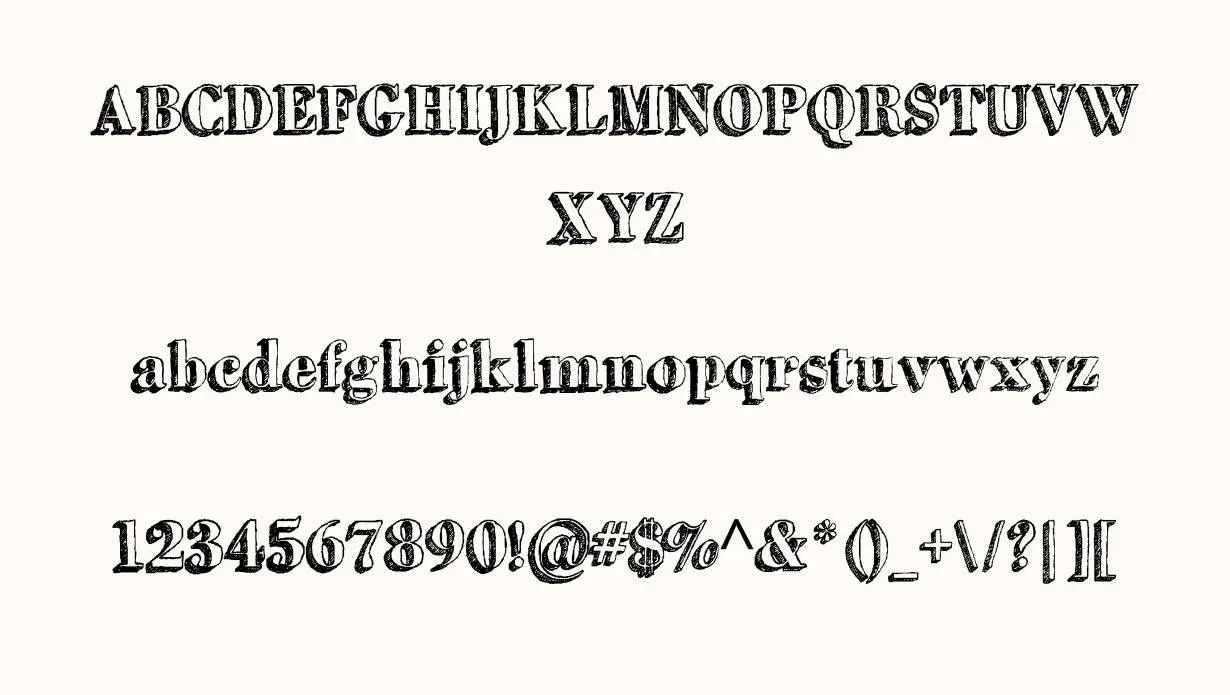
Now we talk about a very attractive fancy Grutch Shaded Font. This unique font was designed by Steve GRUSON. It has one regular style but the look of this font is very attractive all characters are shaded which looks very amazing. It has many features which make it perfect for personal and commercial projects.
It contains 286 characters, 196 glyphs, and 1000 units per Em. The weight of this font is semi-light and its width is medium(normal).